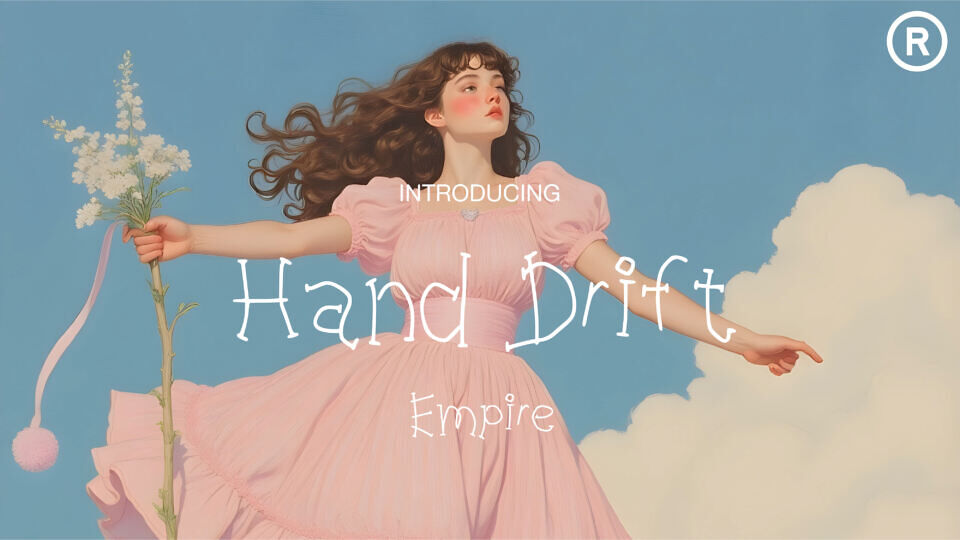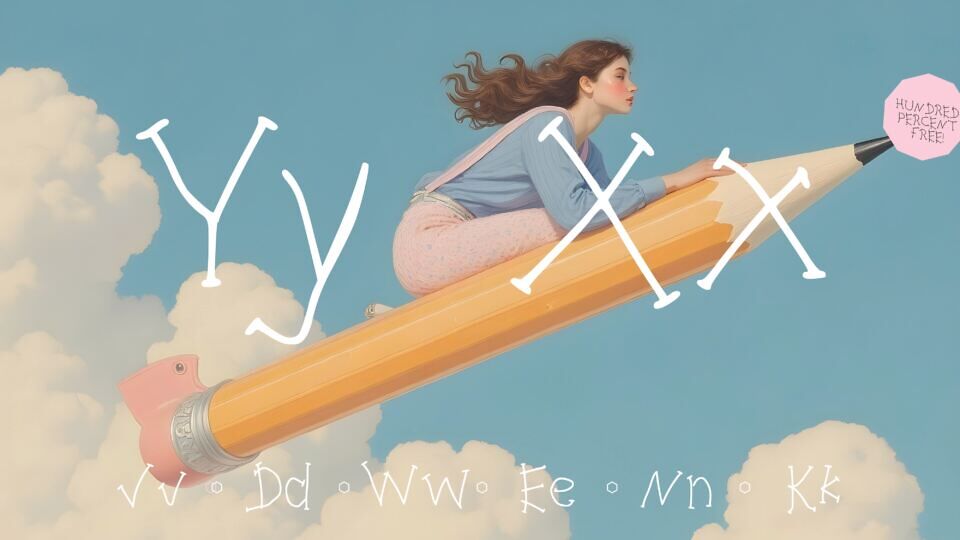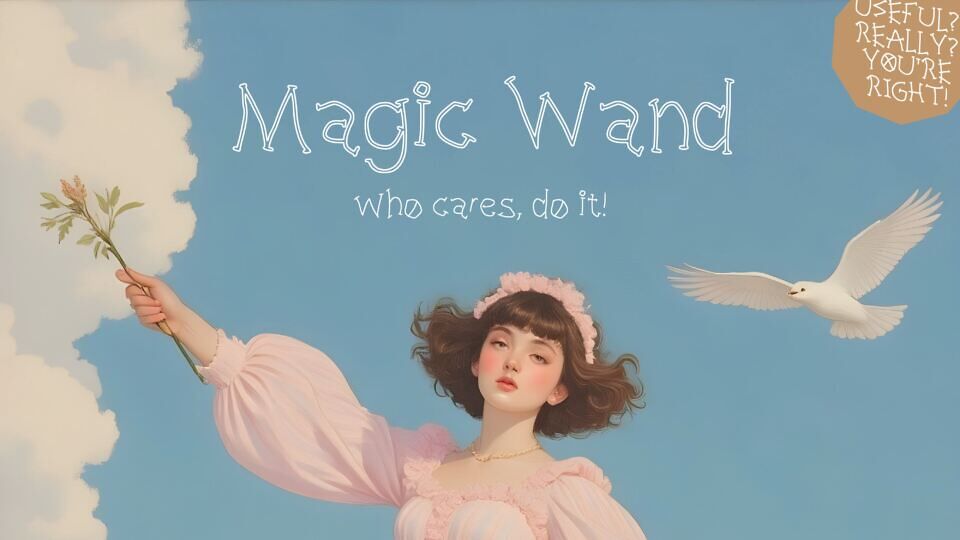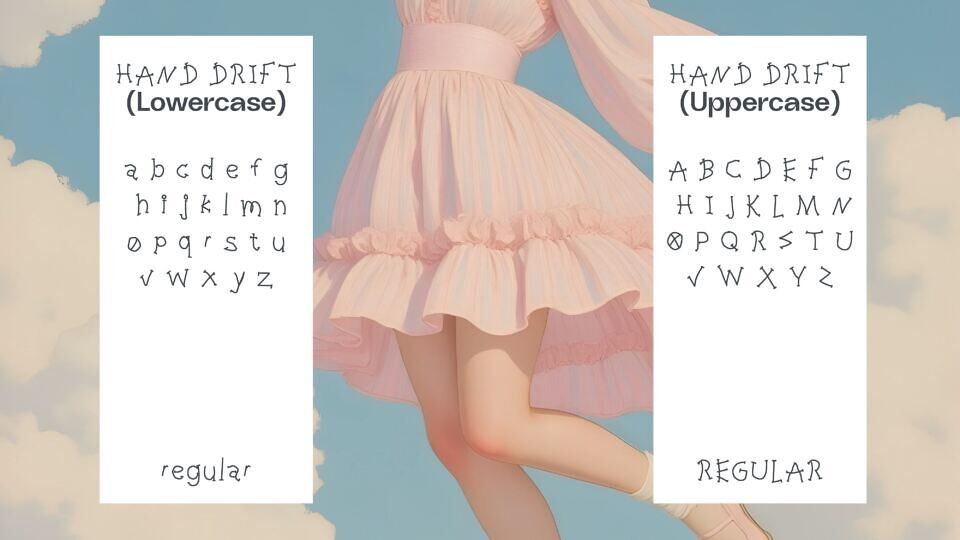
Hand Drift represents the natural flow of creativity, where hand-drawn imperfections meet a touch of elegance. Inspired by the effortless movement of a drifting brush or pen, this font captures the balance between raw expression and refined style. It’s designed for those who appreciate the beauty of handwritten artistry while still seeking a sense of sophistication.
Whether used for branding, editorial work, or creative projects, Hand Drift embodies the idea of free-flowing imagination—where every letter feels organic, yet intentionally crafted.